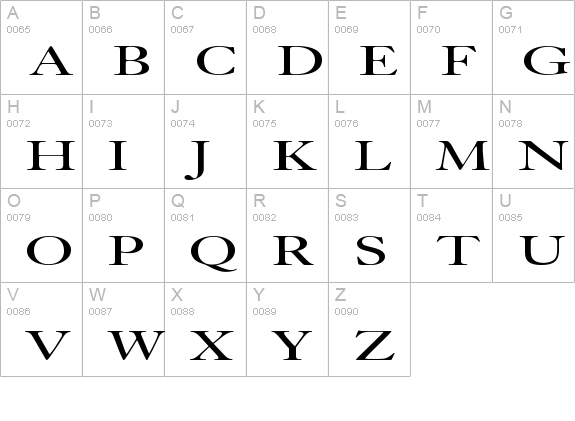
Bliss Extended Normal Font Details
Bliss Extended Normal is the standard, neutral, extended-width variant in the Bliss typeface family \xE2\x80\x94 well suited to general body text, paragraphs, and standard typographic work.
Bliss Extended Normal font is a sleek and modern typeface that exudes elegance and sophistication. Its extended characters add a unique touch to any design project, making it stand out from the rest. With its clean lines and balanced proportions, Bliss Extended Normal font is perfect for headlines, titles, and branding materials. What sets this font apart is that it is available for free download at FontsMarket.com. This means that you can easily access this versatile and eye-catching typeface for your personal or commercial projects without any cost. Whether you're working on a website, poster, or logo, Bliss Extended Normal font is sure to elevate your design and leave a lasting impression. Download it today and add a touch of style to your creations!